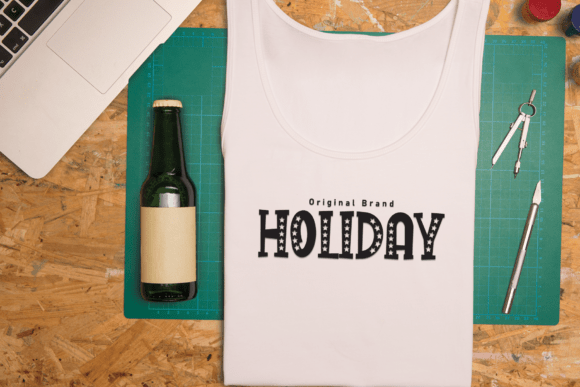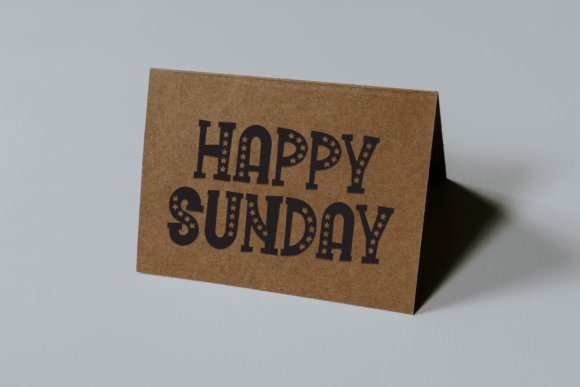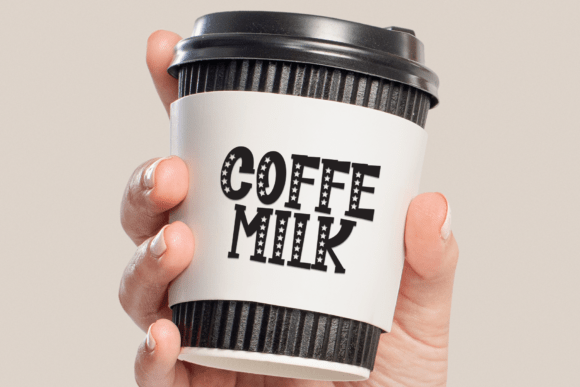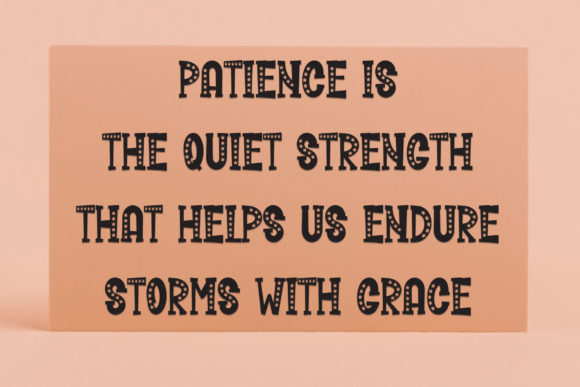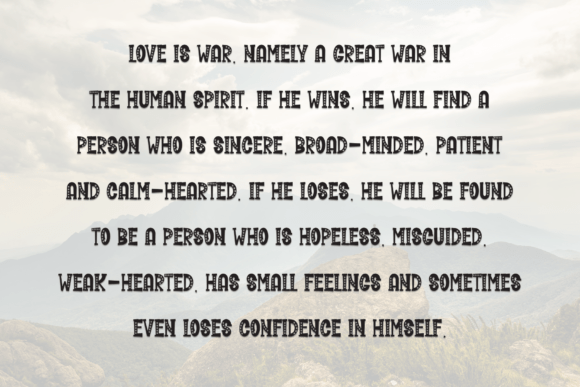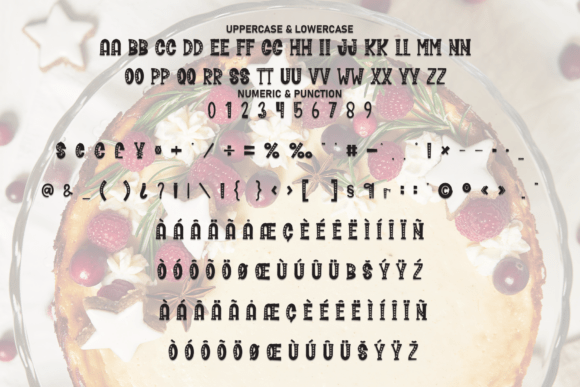
Introduction to Christmas Cheesecake Font
As the snowflakes start to fall and the festive lights twinkle, designers around the world begin to brainstorm creative ways to capture the magic of the holiday season. For those seeking a unique design resource to elevate their holiday projects, we have some exciting news – the Christmas Cheesecake Font is here to spread some cheer!
This stunning display font is a game-changer for designers looking to add a touch of festive flair to their work. With its bold, high-contrast typeface and internal pattern of shimmering stars, the Christmas Cheesecake Font is the perfect choice for crafting labels, headers, and graphics that exude artisanal charm and celestial wonder.
Whether you’re working on a high-quality design project or simply looking for a free download to add some sparkle to your social media graphics, the Christmas Cheesecake Font is an invaluable resource that’s sure to delight your audience and make your creative project shine.
Key Features of Christmas Cheesecake Font
- High-quality design resource for creative projects, perfect for adding a festive touch to your work.
- Features a transparent background, allowing for seamless integration into your design.
- Unique characteristics include whimsical illustrations and playful typography, making it an ideal choice for holiday-themed designs.
- Perfect for use in digital and print projects, such as social media graphics, posters, and greeting cards.
Honest Review: Christmas Cheesecake Font
I recently came across the Christmas Cheesecake Font, and I must say it’s quite a treat. The design resource is perfect for creative projects that require a festive touch. ✨ One of the standout features of this font is its high quality and crisp typography, making it ideal for use in digital designs. The font also features a transparent background, which is great for graphic designers who want to maintain creative control over their designs.
Here are some of the key features of the Christmas Cheesecake Font:
- High quality typography
While the Christmas Cheesecake Font is a great addition to any design resource collection, it does have some limitations. ⚠️ For example, it’s a bit limited in terms of customization options, and the font may not be suitable for use in print designs that require high-resolution images.
Overall, I’m quite impressed with the Christmas Cheesecake Font. It’s a great resource for designers who want to add a festive touch to their creative projects. With its high quality typography and transparent background, it’s a must-have for any design enthusiast.
How to Use Christmas Cheesecake Font
The Christmas Cheesecake Font is a free, high-quality design resource ideal for various creative projects, especially those related to the holiday season. It features a transparent background, allowing for seamless integration with your design.
To get the most out of the Christmas Cheesecake Font, experiment with different font sizes, colors, and combinations to create unique and eye-catching designs.
The Christmas Cheesecake Font is perfect for:
Creating holiday-themed invitations, greeting cards, and social media posts
Designing festive menus, labels, and packaging
Adding a touch of holiday cheer to presentations, documents, and digital content
Alternatives to Christmas Cheesecake Font
The Winter Wonderland Font is a high-quality, elegant design resource perfect for holiday-themed projects. It features a transparent background and can be used for both personal and commercial projects. This font is ideal for designers looking for a more sophisticated and refined alternative to Christmas Cheesecake Font.
It compares to Christmas Cheesecake Font in terms of its festive and playful feel, but Winter Wonderland Font has a more subtle and understated approach. It’s perfect for designers who want to add a touch of elegance to their creative project.